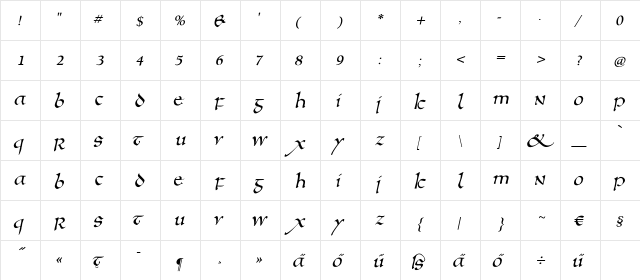
AnglosaxOblique Regular
Design Context for AnglosaxOblique Typeface
AnglosaxOblique is a composed and adaptable typeface that performs quietly and consistently across a wide range of design contexts. The dynamic lean of this cut emphasises speed and emphasis in any layout.
Pro Tip: Use AnglosaxOblique for emphasis, pull quotes, and subheadings where its slanted energy can add rhythm to the layout.